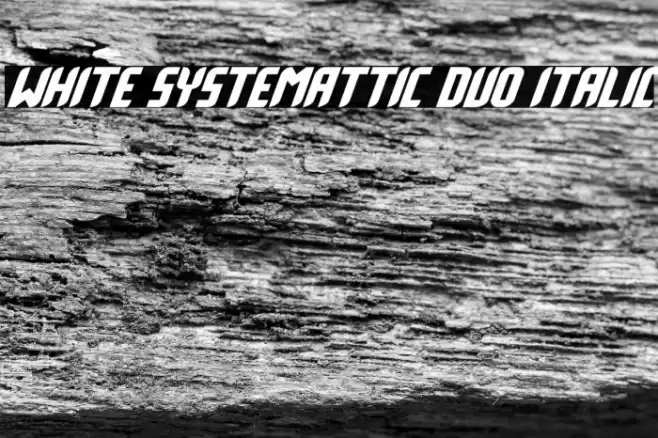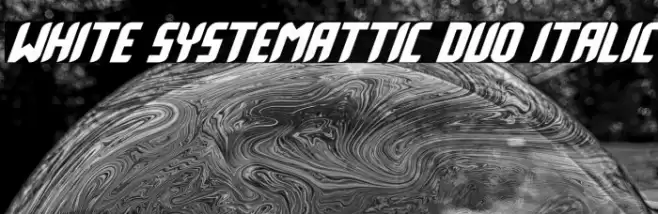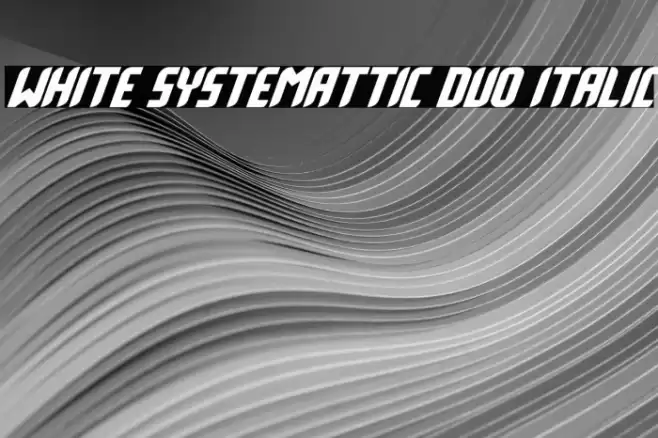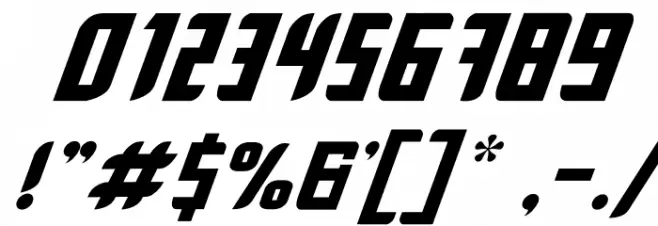
White Systemattic Duo Italic Font
White Systemattic Duo Italic Description
This font features a bold, italicized style with a modern and dynamic appearance. The characters are sharply angled, giving a sense of motion and energy. The uppercase and lowercase letters maintain a consistent slant, enhancing the italic effect. The numbers and special characters follow the same design principles, ensuring uniformity across all glyphs. The strokes are thick and consistent, providing a strong visual impact. This font is well-suited for projects that require a bold statement, such as sports branding or dynamic advertising.
A bold, italicized font with a modern, energetic style from Uncategorized fonts.
- Proposed Projects: Ideal for sports branding, dynamic advertising, and eye-catching headlines.